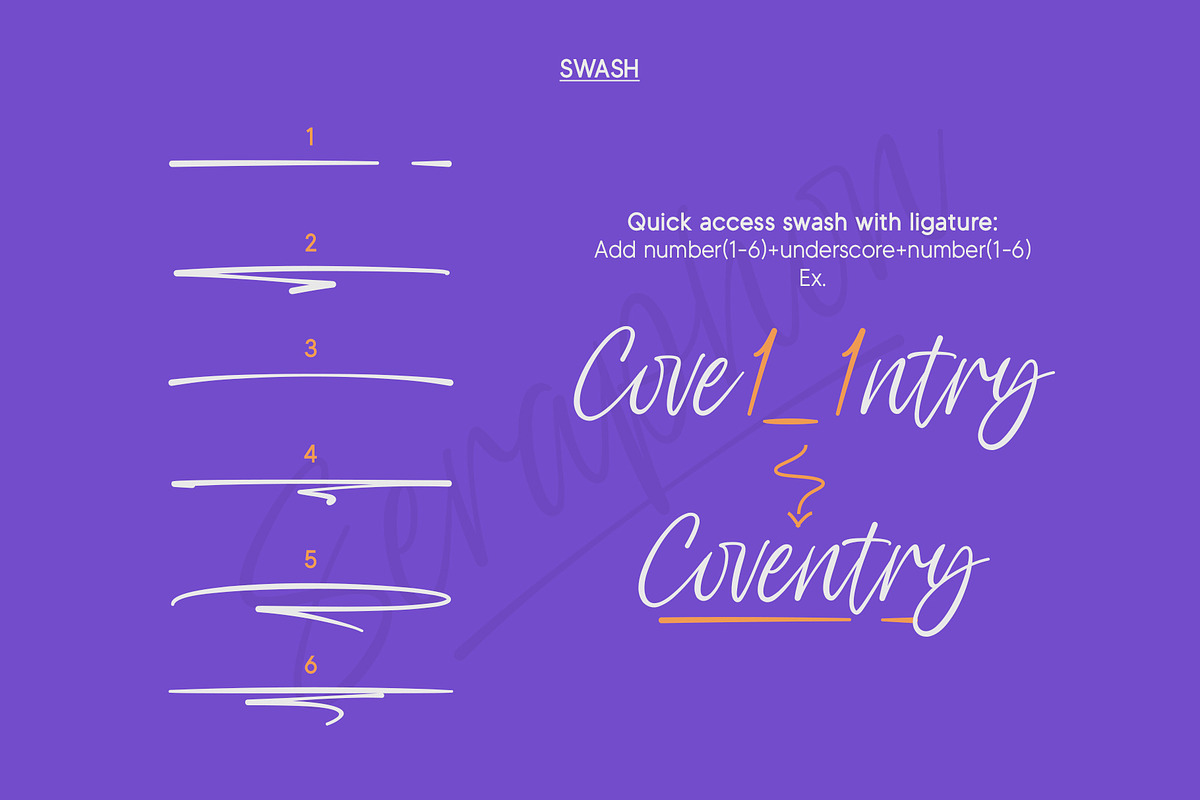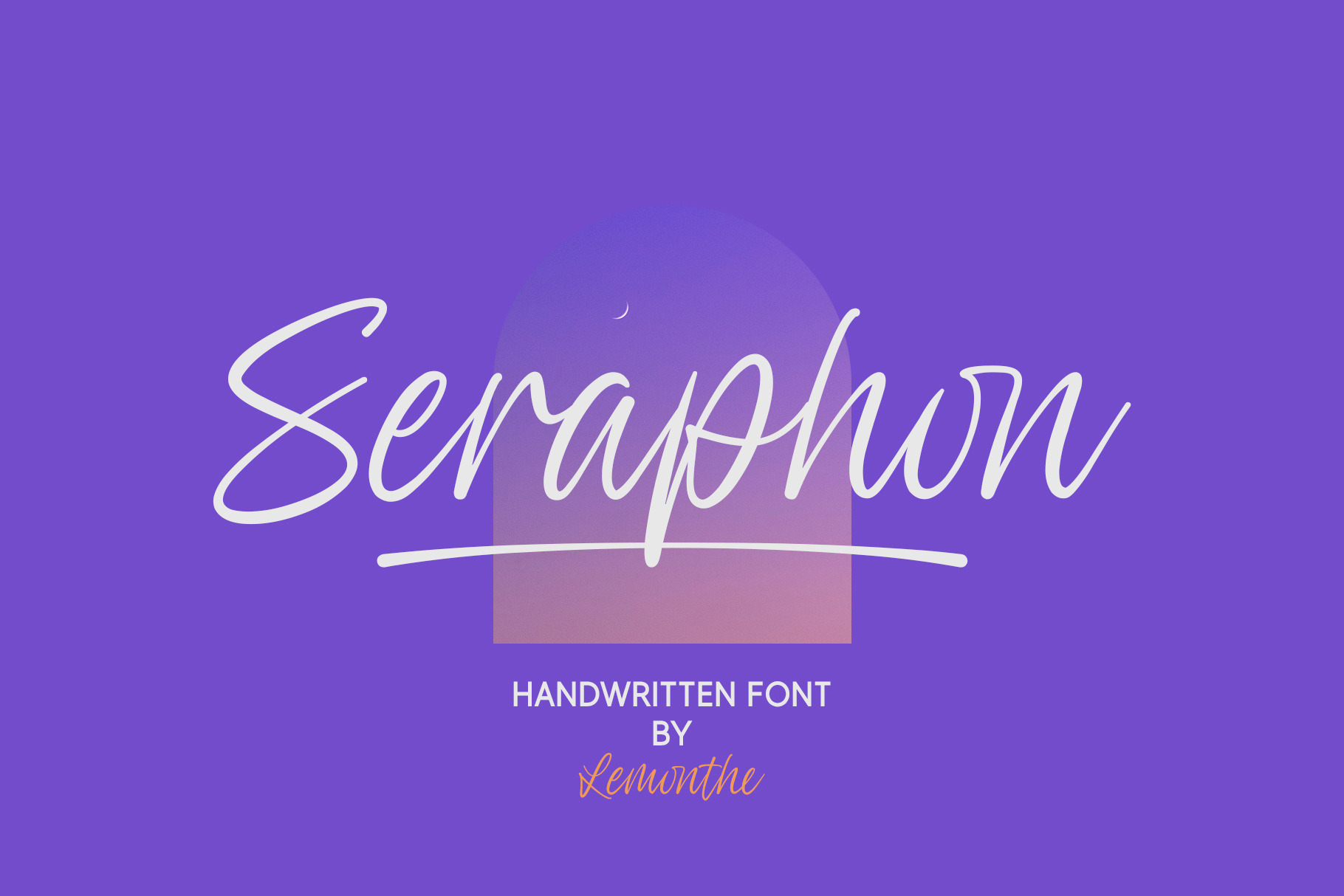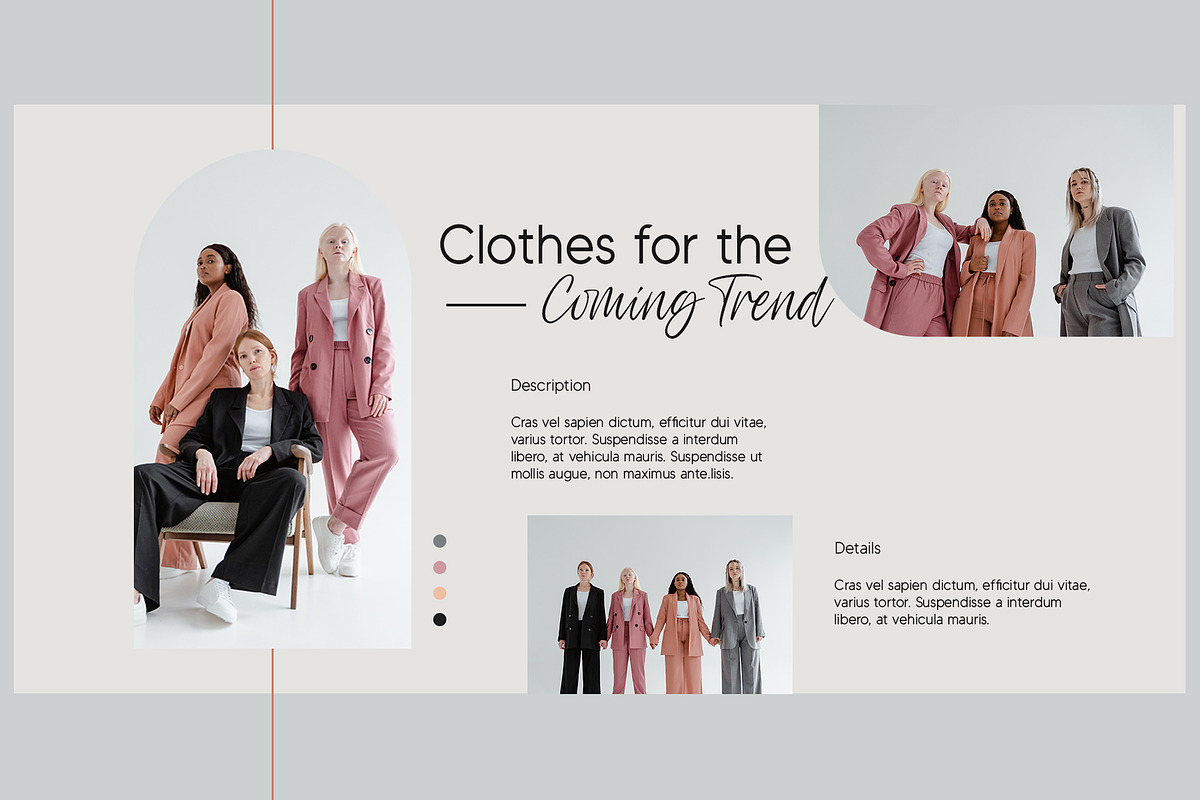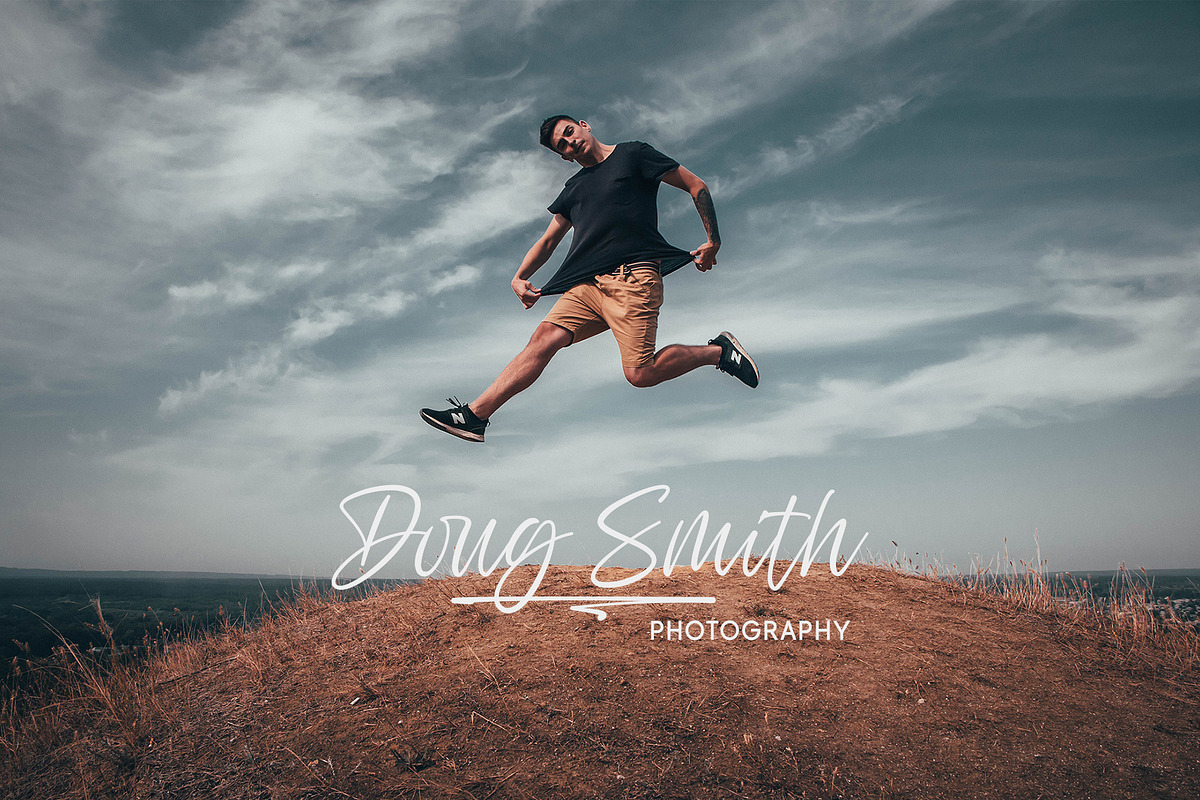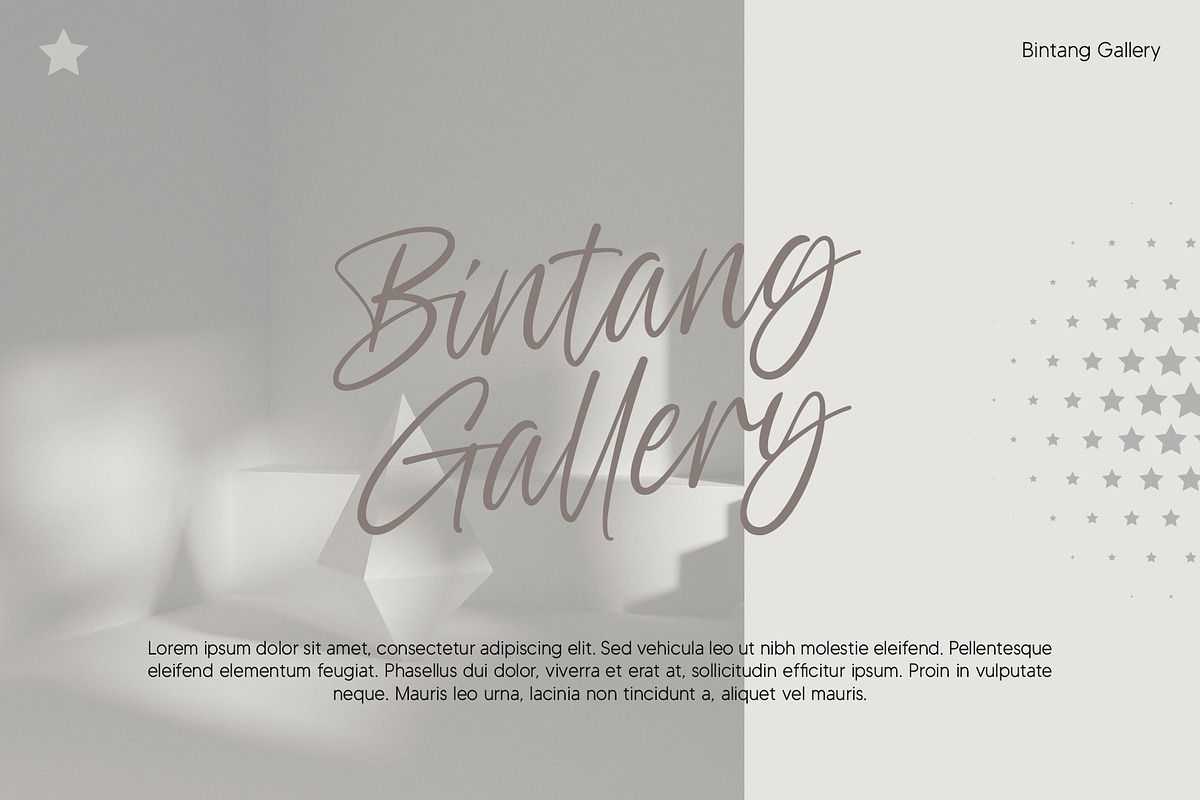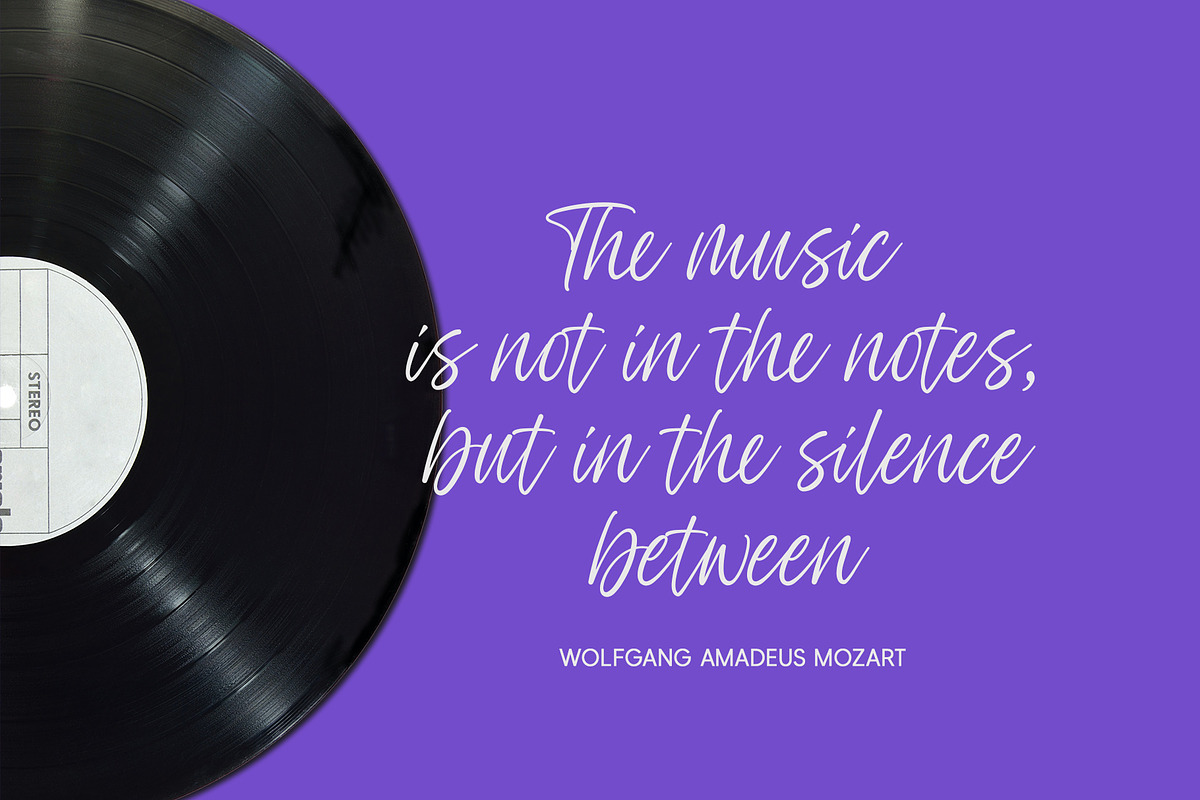
Seraphon | Handwritten Font
Seraphon is a stylish and delicate handwritten font. It has a gentle and beautiful flow and it will be a hit for any design that you want to add it to. is perfect for many different project such as logos & branding, invitation, stationery, wedding designs, signature, product designs, label, photography, and more!
Quick access swash
- Add number (1-6) + underscore + number (1-6). Ex: 1_1, 2_2, 3_3, 4_4, 5_5, 6_6